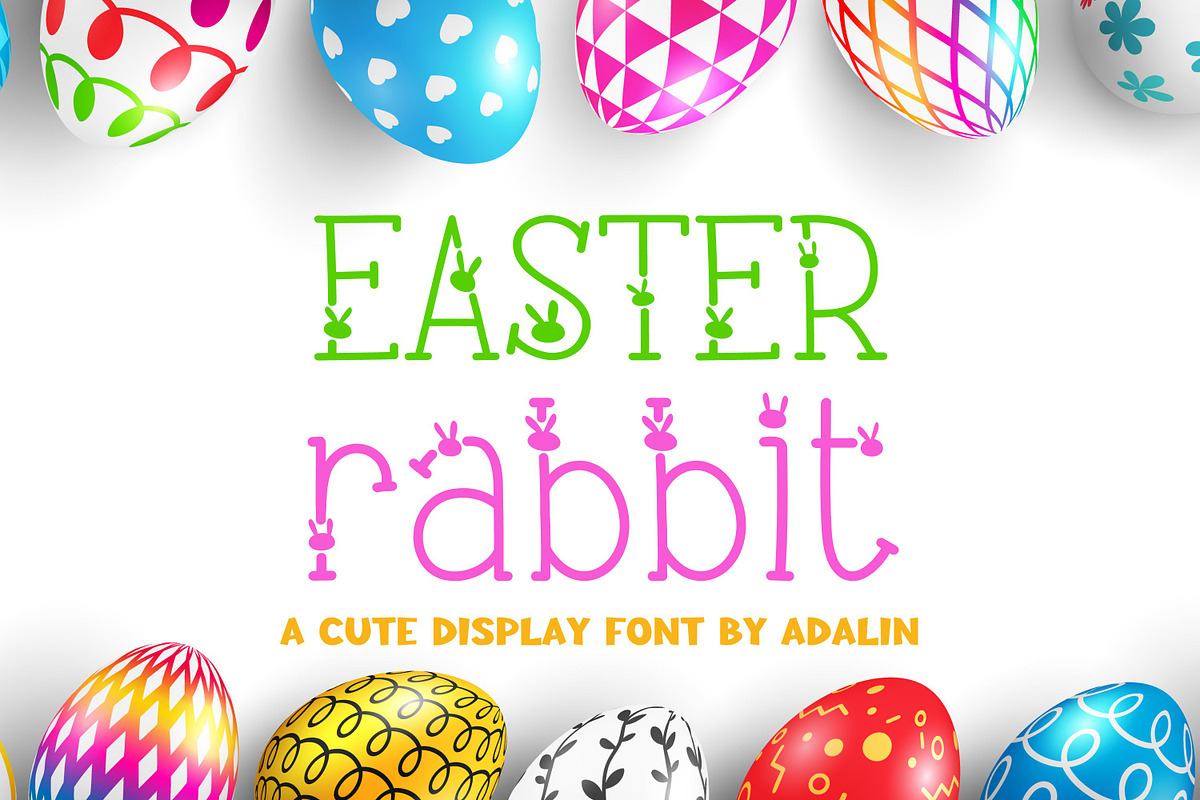
Easter Rabbit Display Font Free Download is a cheerful and whimsical typeface inspired by the joy of springtime and Easter festivities. With its rounded edges, playful bounce, and bunny-eared charm, this font is perfect for holiday cards, egg hunt flyers, kids’ crafts, seasonal packaging, and pastel-themed branding.
Designed to bring smiles, Easter Rabbit captures the fun and magic of the season. Whether you're creating decorations for a spring party or designing a limited-time product label, this font adds warmth, personality, and festive flair.
Its bold readability and sweet character make it ideal for both print and digital use, especially for family-friendly and joyful content.